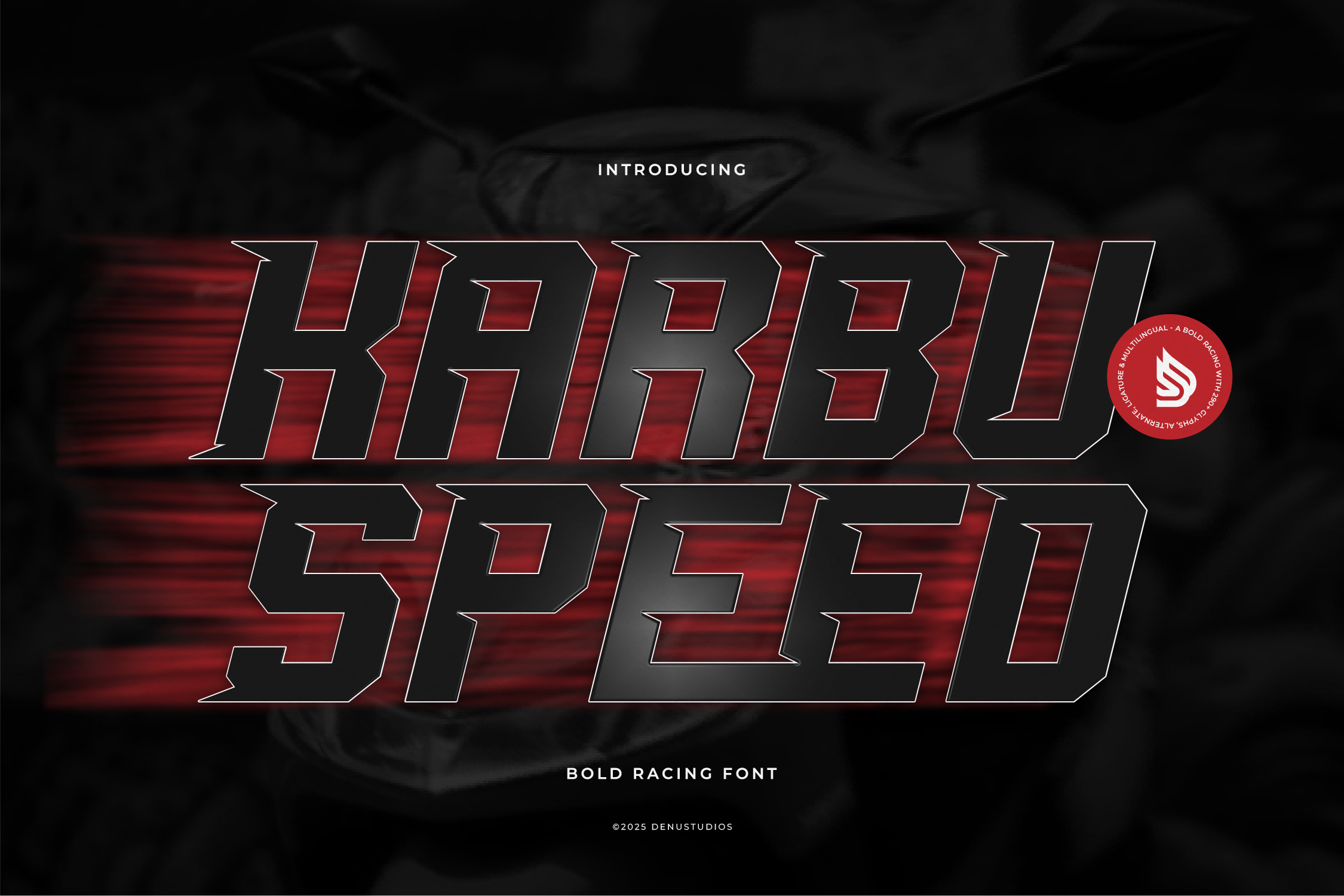
Karbu Speed | Bold Racing Font
Karbu Speed | Bold Racing Font, from Denustudios, suitable for any projects such as: logos, branding projects, homeware designs, product packaging, mugs, quotes, posters, shopping bags, t-shirts, book covers, name card, invitation cards, greeting cards, label, photography, watermark, special events, and all your other lovely projects that need a Bold Racing Font taste.